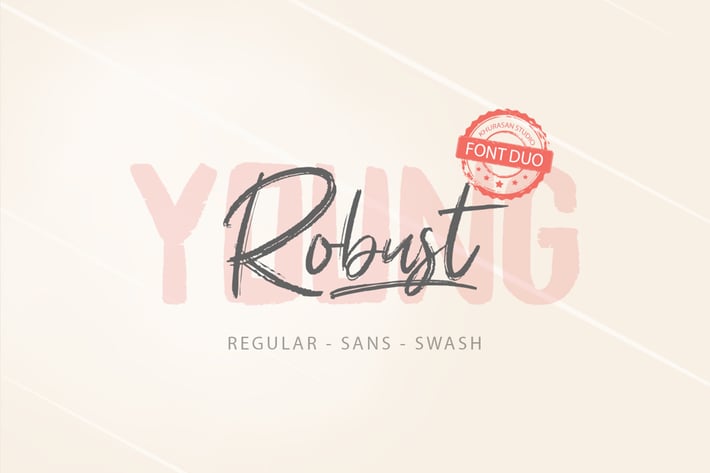
Young Robust Font Duo
The Young Robust font is a modern font with two different styles, script & sans + swash. Young Robust font it’s perfect for , poster, logo, magazine, cover, banner, tshirt and headers, or even large-scale artwork.